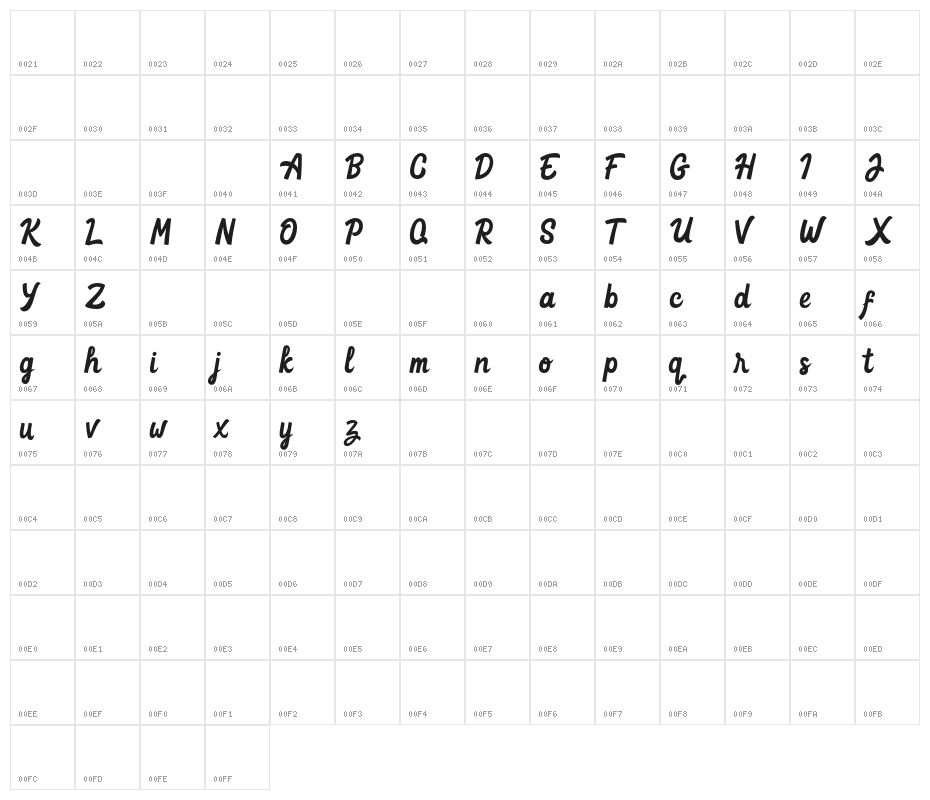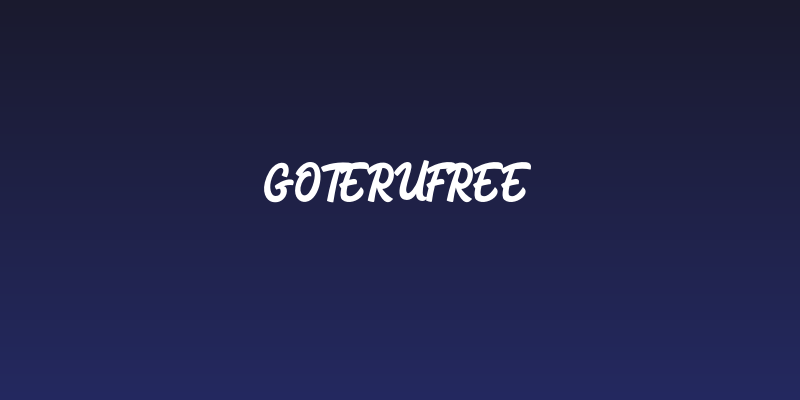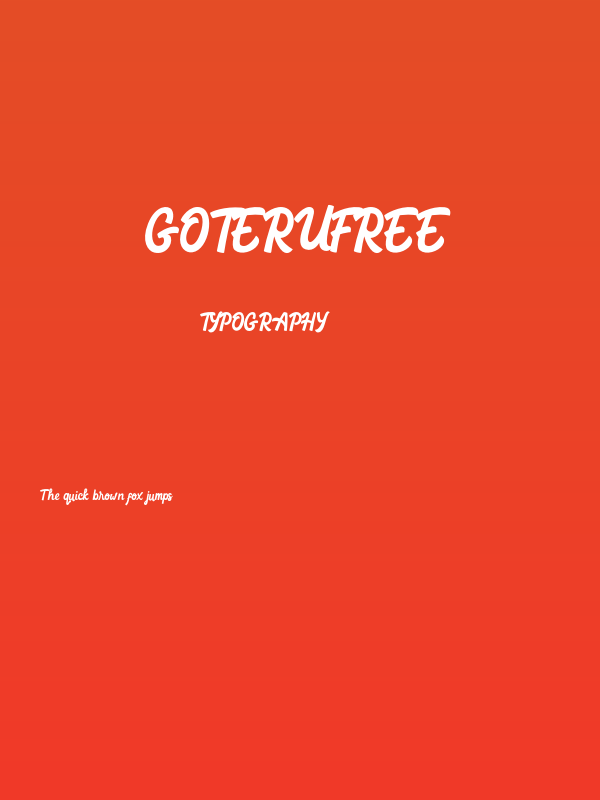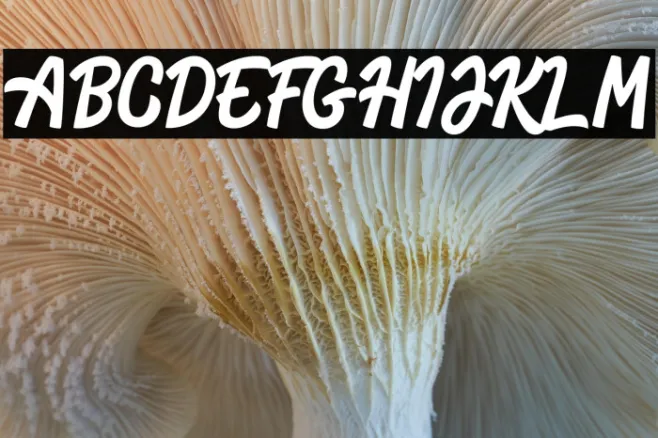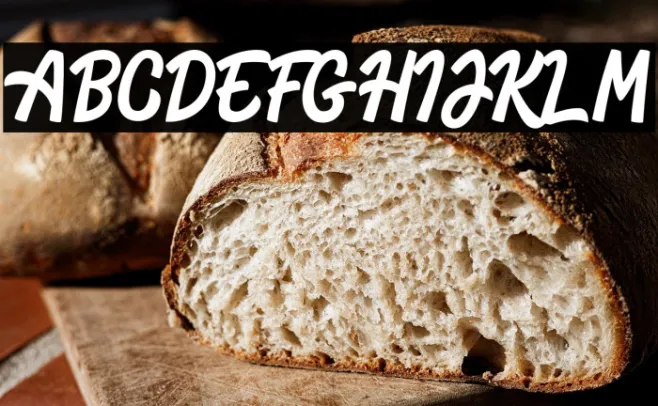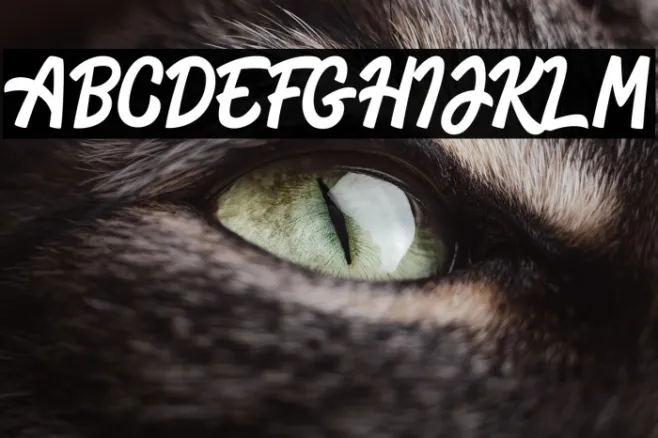
GoteruFREE Font
GoteruFREE Description
This font features a bold and dynamic script style with a playful and energetic character. The letters are interconnected, giving a sense of fluidity and movement. The strokes are thick and consistent, providing a strong visual impact. The uppercase letters maintain a uniform height, while the lowercase letters exhibit a slight slant, enhancing the cursive feel. The overall appearance is modern and expressive, suitable for designs that require a touch of personality and flair. The font is versatile, making it ideal for various creative projects.
| Font Family | Goteru FREE |